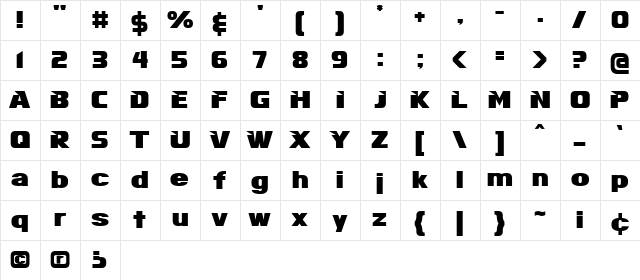
Infinite Justice Straight Regular
Design Context for Infinite Justice Straight Typeface
Infinite Justice Straight takes a measured approach to typography — its balanced proportions and neutral character make it a reliable workhorse for both digital and print work.